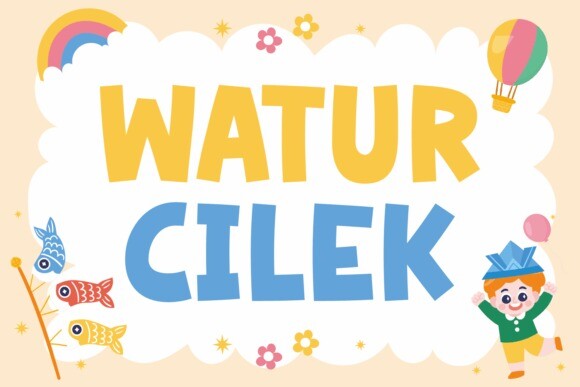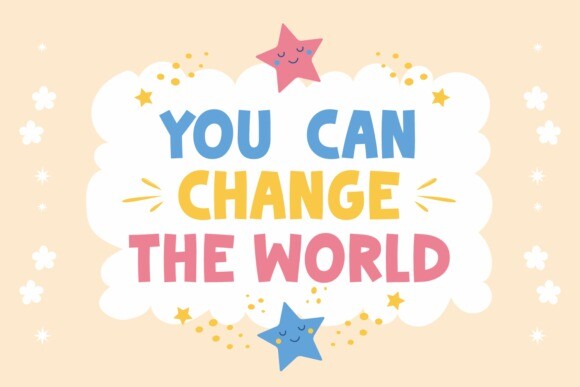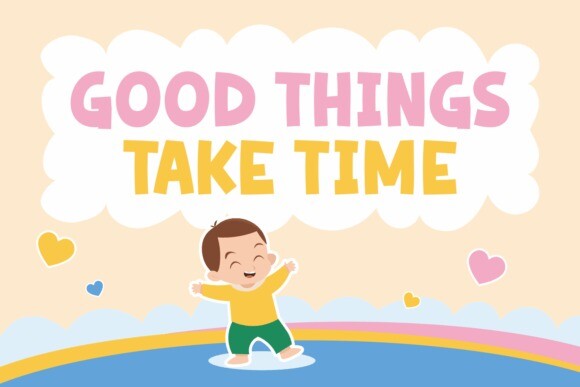
Watur Cilek Font
Watur Cilek Font is a fun and friendly display font. Whether you are using it for cartoon-related designs, children’s games, quotes, titles, brand names, book covers, posters, or just any creation that requires a touch of joy, this font is a great choice.